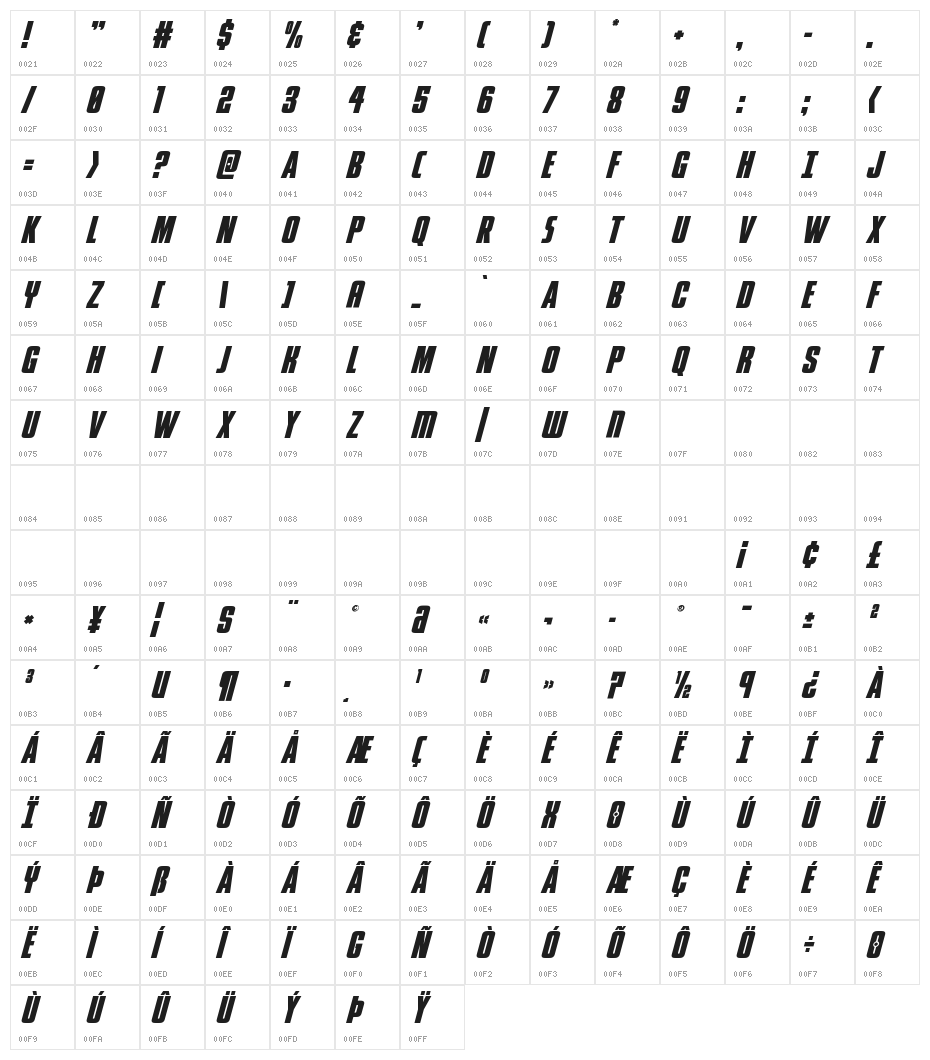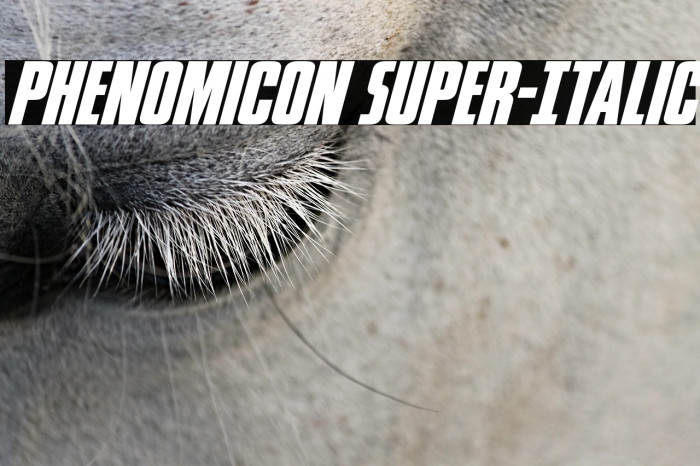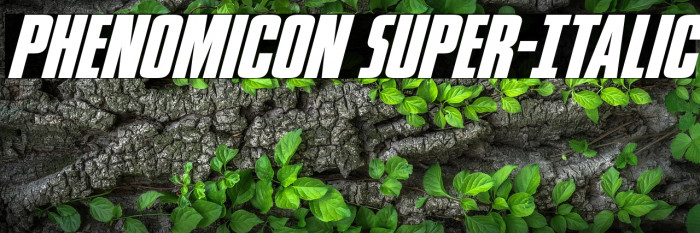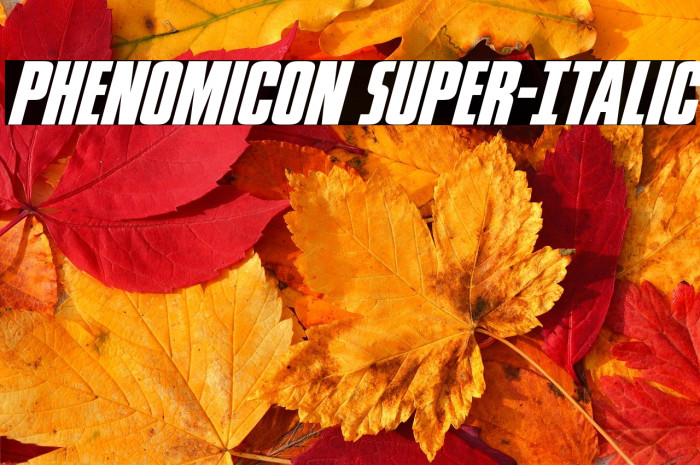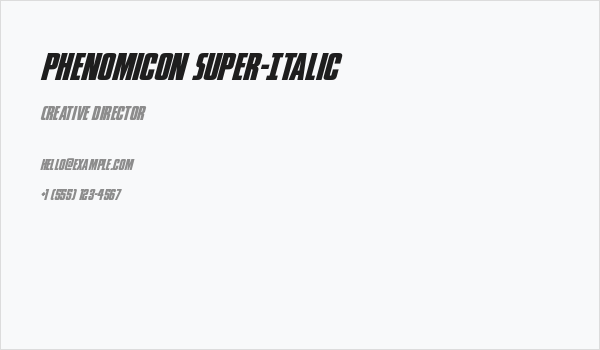
Phenomicon Super-Italic Font
Phenomicon Super-Italic Description
This font features a bold and dynamic style with a strong italic slant, giving it a sense of motion and energy. The characters are tightly spaced, enhancing its compact and impactful appearance. The strokes are thick and consistent, providing a high contrast that makes each letter stand out distinctly. Its design is modern and assertive, suitable for making bold statements. The uppercase and lowercase letters maintain a uniform style, while the numerals and special characters are crafted to match the overall aesthetic, ensuring visual harmony across different uses.
| Proposed Projects | Ideal for sports branding, dynamic posters, action-themed designs, and impactful headlines. |